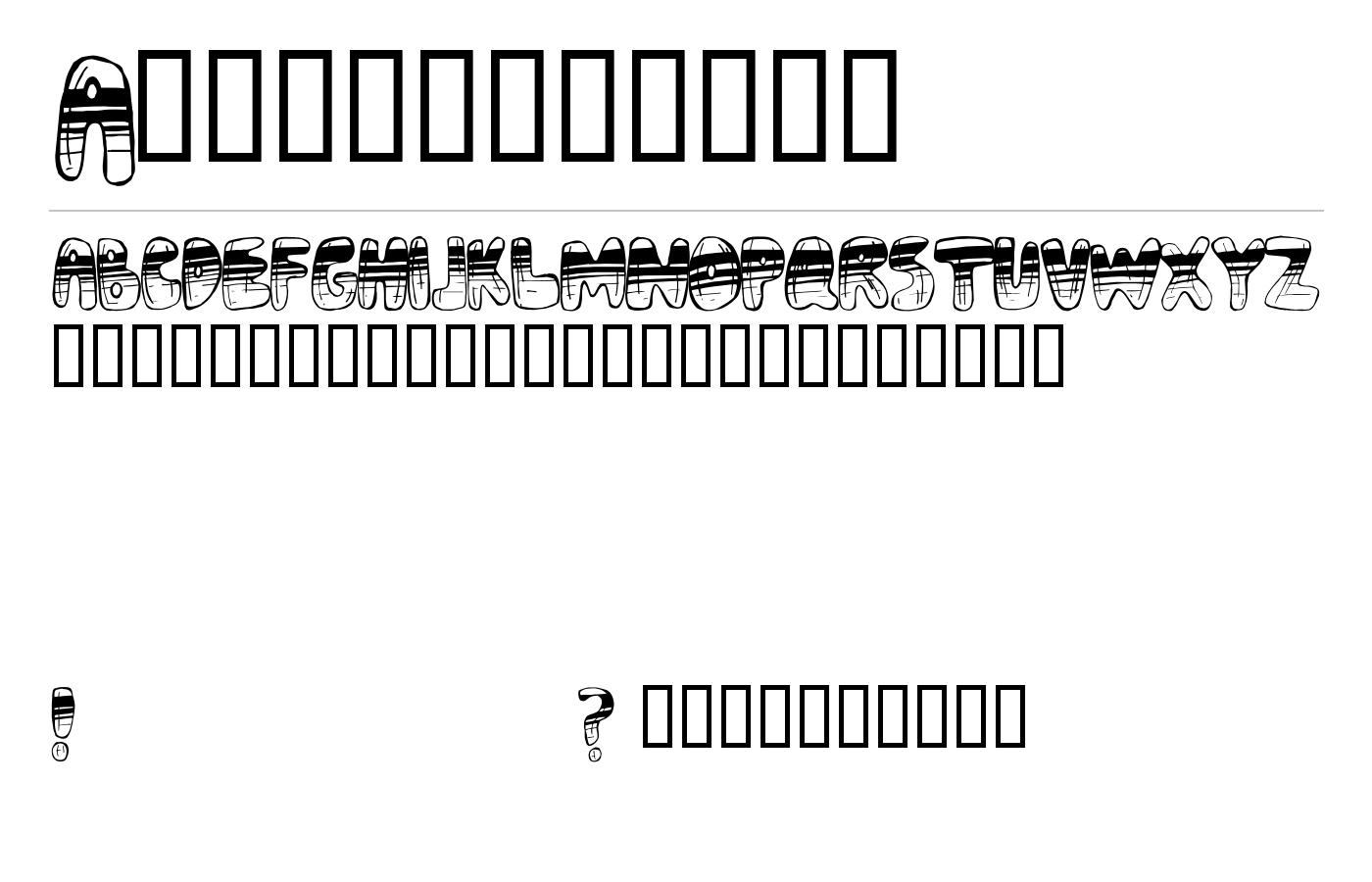
Adrenochrome is a playful, hand-drawn display font featuring irregular, rounded letterforms with bold horizontal stripes and a sketch-like texture. Its quirky and informal style makes it ideal for creative projects, fun logos, and eye-catching posters where a casual and energetic vibe is desired. This font adds a unique, artistic touch that stands out in informal and whimsical designs.
Adrenochrome Font
About Adrenochrome Font